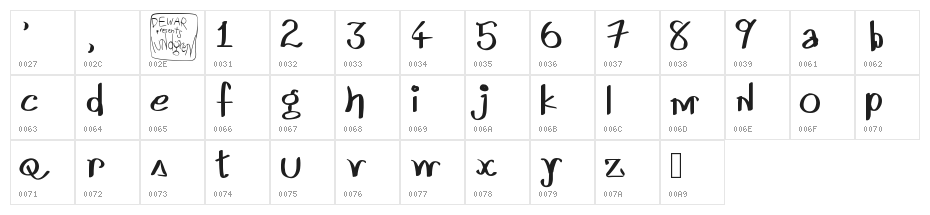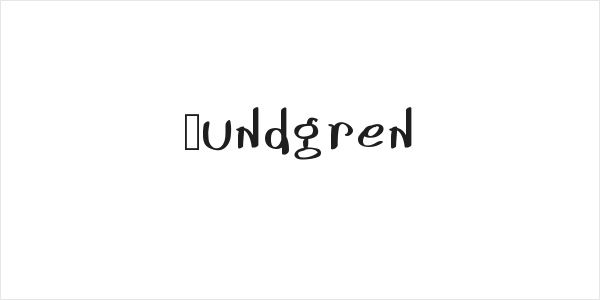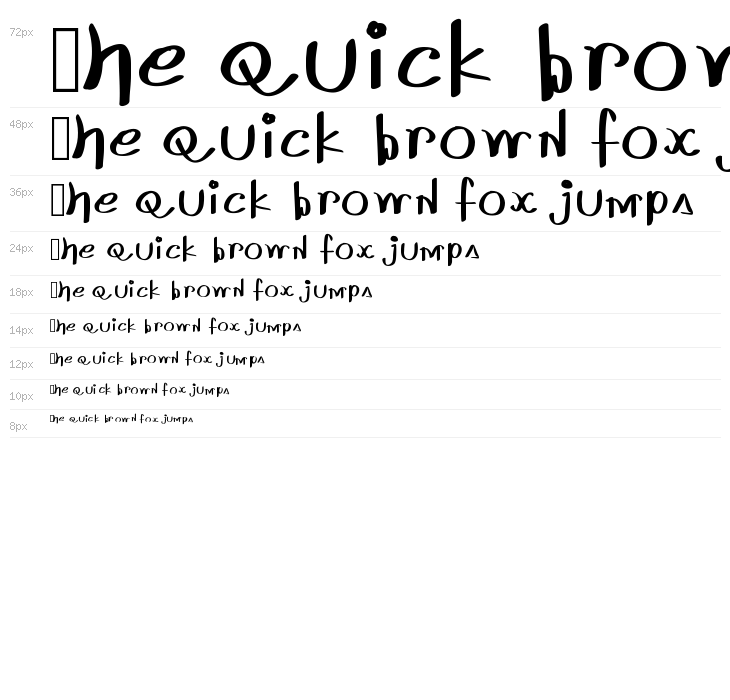
Lundgren Font
Lundgren Description
This font features a playful and whimsical design with a handwritten style. The lowercase letters exhibit a smooth, flowing script with varying stroke thickness, adding a dynamic and lively feel. The numbers are bold and slightly exaggerated, maintaining the playful essence of the font. The overall appearance is casual and informal, making it suitable for creative and artistic projects. The font's unique character shapes and irregularities contribute to its charm and individuality.
Use CaseLogos, Posters, Creative projects
Proposed ProjectsIdeal for greeting cards, children's books, creative posters, and artistic branding.